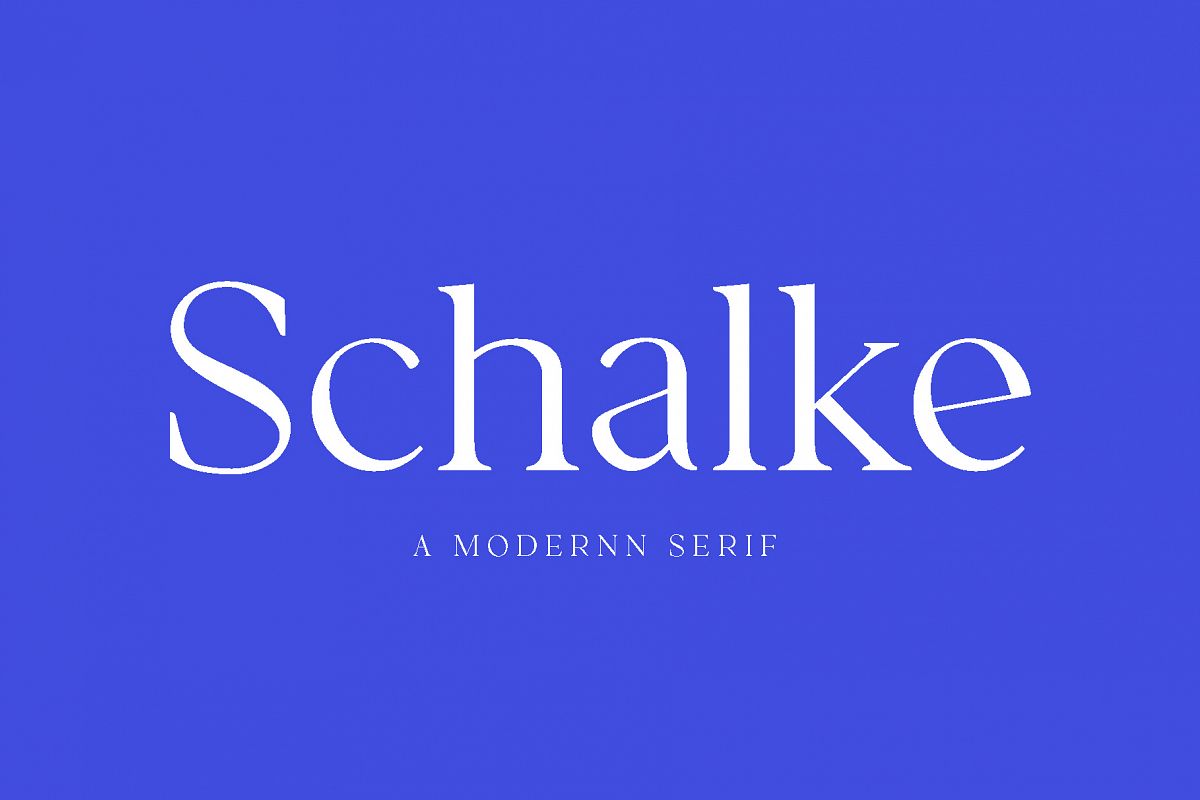
Schalke - Modernn Serif
Schalke Regular
Schalke is a modern serif font that is very interesting because this font is formed so that each letter has details or features that make this font pleasing to the eye and can also be used in many media
This font can be an alternative choice for you